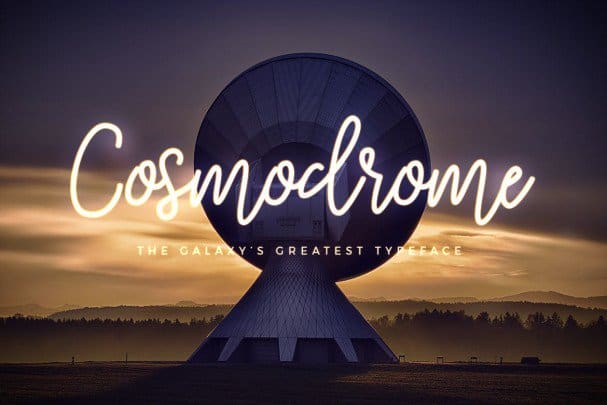
Cosmodrome Monoline Script Font
Cosmodrome Monoline Script is renowned as one of the most elegant fonts of all time, bearing similarity to the campton font. This font is distinguished by its unique copy and paste feature and is classified as a handwritten typeface.
This font has been used everywhere due to the fact that its miles starting. Its pinnacle-notch popularity can be credited to the truth that it’s far the splendid brush font to be had now.